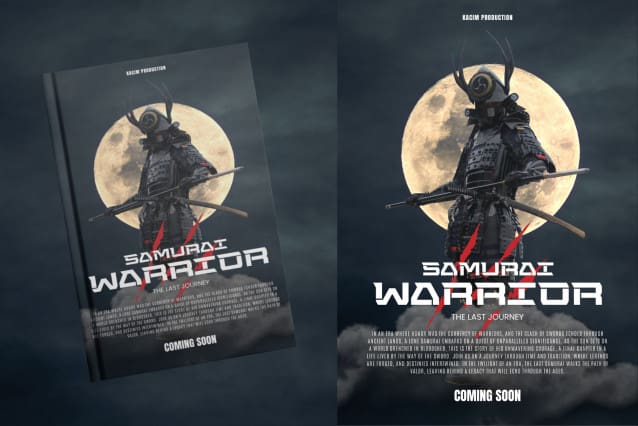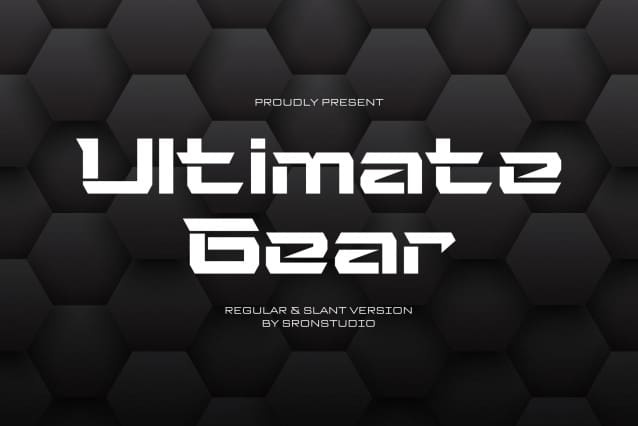
Ultimate Gear Font
Ultimate Gear Font, a font that perfectly encapsulates the fusion of modern technology and the future of the automotive industry. With its sleek, high-tech design and futuristic aesthetics, this font is ideal for projects that demand a contemporary and advanced look. Whether you’re creating designs for automotive brands, tech-driven innovations, or any project related to the future of mobility, “Ultimate Gear” adds a touch of cutting-edge sophistication to your typography.